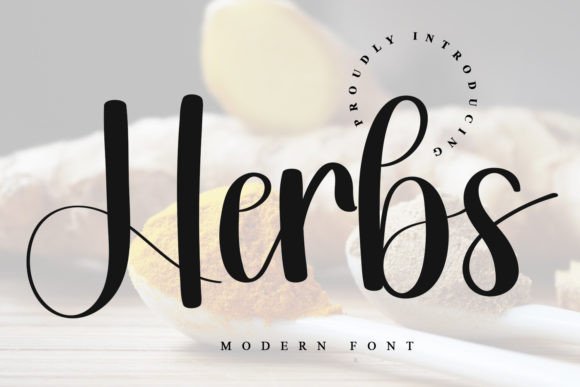
Introduce yourself to Herbs Font – a creation by ABBAsalam that oozes beauty and refinement. Its captivating script style brings an air of elegance and modernity to all your creative endeavors. This font is the epitome of versatility, capable of seamlessly adapting to a vast array of projects. Dive into the world of Herbs Font and discover the boundless possibilities it holds.
From sophisticated logos and branding to eye-catching invitations and stationery, Herbs Font adds a touch of class to each design. Embrace the charm it brings to your wedding designs, making your special day even more unforgettable. Its presence on social media posts will elevate your content, ensuring it stands out and captures attention.
With Herbs Font, you'll find a font that effortlessly complements your creative vision. Its graceful strokes dance across the page, evoking a sense of timeless elegance. Unleash your creativity and let Herbs Font guide you towards captivating designs that will leave a lasting impression.
Say goodbye to mundane fonts and embrace the captivating allure of Herbs Font. Transform your designs, whether they be for personal projects or professional endeavors, and experience the difference that a truly exceptional font can make. Let Herbs Font take you on a journey of creative expression, leaving your audience spellbound.